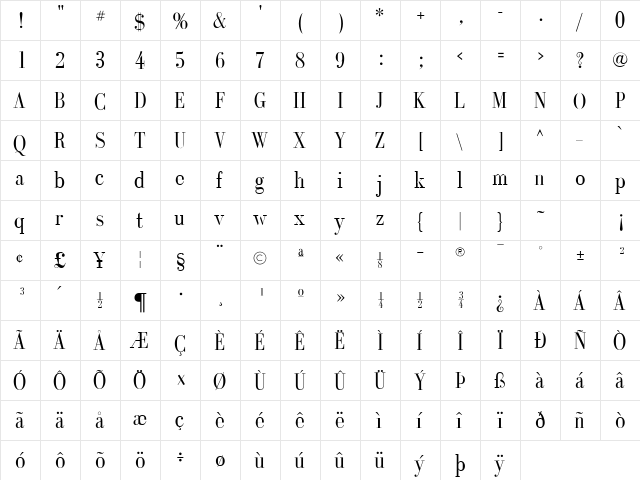
GalileoFLF Medium
Design Context for GalileoFLF Typeface
GalileoFLF is a composed and adaptable typeface that performs quietly and consistently across a wide range of design contexts.